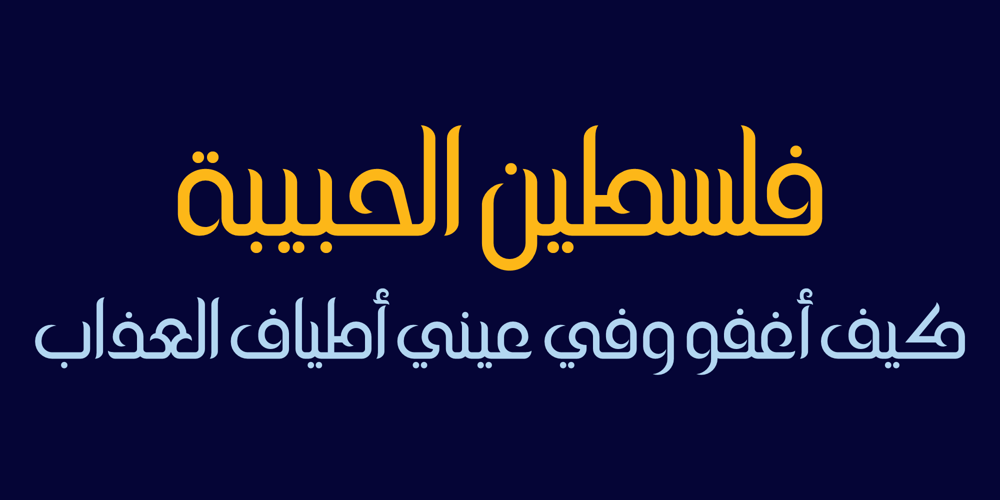
HS Alwajd Font Family was designed by Hasan Abu Afash and published by Hiba Studio. HS Alwajd contains 1 styles and family package options. Hs Alwajd is an Arabic display typeface, under “titles” category. It is useful for book titles, creative designs and modern logos. Also, it is used when a contemporary and simple look is desired that can fit with the characteristics of Kufi fatmic where horizontal parts are equal than vertical ones. It is a new style based onHS Almajdbut without swirling round forms terminating in ball. The font is based on Kufi Fatmic calligraphy along with some derived ideas of decorative fonts, maintaining the beauty of the Arabic font and its fixed rates. Undoubtedly, the insertion of curved ornament in some parts adds more beauty and fascinating diversity in the flow line between sharp, soft and curved parts. This font supports Arabic, Persian, Pashtu, Kurdish Sorani, Kurdish Kirmanji and Urdu, consisting only one weight which can add to the library of Arabic Kufic fonts contemporary models that meet with the purposes of various designs for all purposes and all tastes.